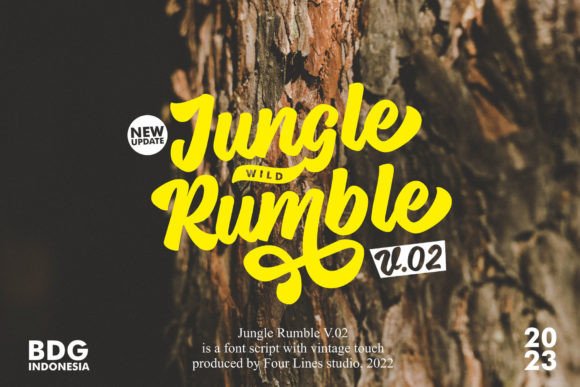
Embark on a journey through the lush wilderness of creativity with Jungle Rumble V.02, a captivating script font that will ignite your imagination and leave you spellbound. Crafted with precision and a keen eye for detail, this font is a masterpiece that exudes elegance and playfulness in equal measure.
Step into the uncharted territories of design, where Jungle Rumble V.02 will guide you through the untamed beauty of the jungle. Its graceful strokes are like vines, intertwining and weaving together to create a visual symphony. Whether you're crafting logos, branding materials, or invitations, this font will add an enchanting allure to your creations.
With Jungle Rumble V.02, your designs will echo the captivating melodies of nature. Its delicate curves and playful swashes will dance across your projects, captivating your audience and leaving them breathless. Unleash your inner artist and let this font be your muse, guiding you towards masterpieces that transcend the ordinary.
Imagine the impact of your logos adorned with the intricate beauty of Jungle Rumble V.02. Your brand will radiate a sense of sophistication and uniqueness, leaving an indelible mark on the minds of your customers. Dive into the depths of your creativity and let this font be your compass, leading you to uncharted territories of visual storytelling.
Jungle Rumble V.02 is more than just a font; it's an experience that will transport you to a world of enchantment and wonder. Its elegant script and playful charm will ignite your imagination, inspiring you to create designs that captivate and inspire. Join the ranks of creative visionaries who have embraced the allure of Jungle Rumble V.02 and let your work stand out as a testament to your artistic prowess.